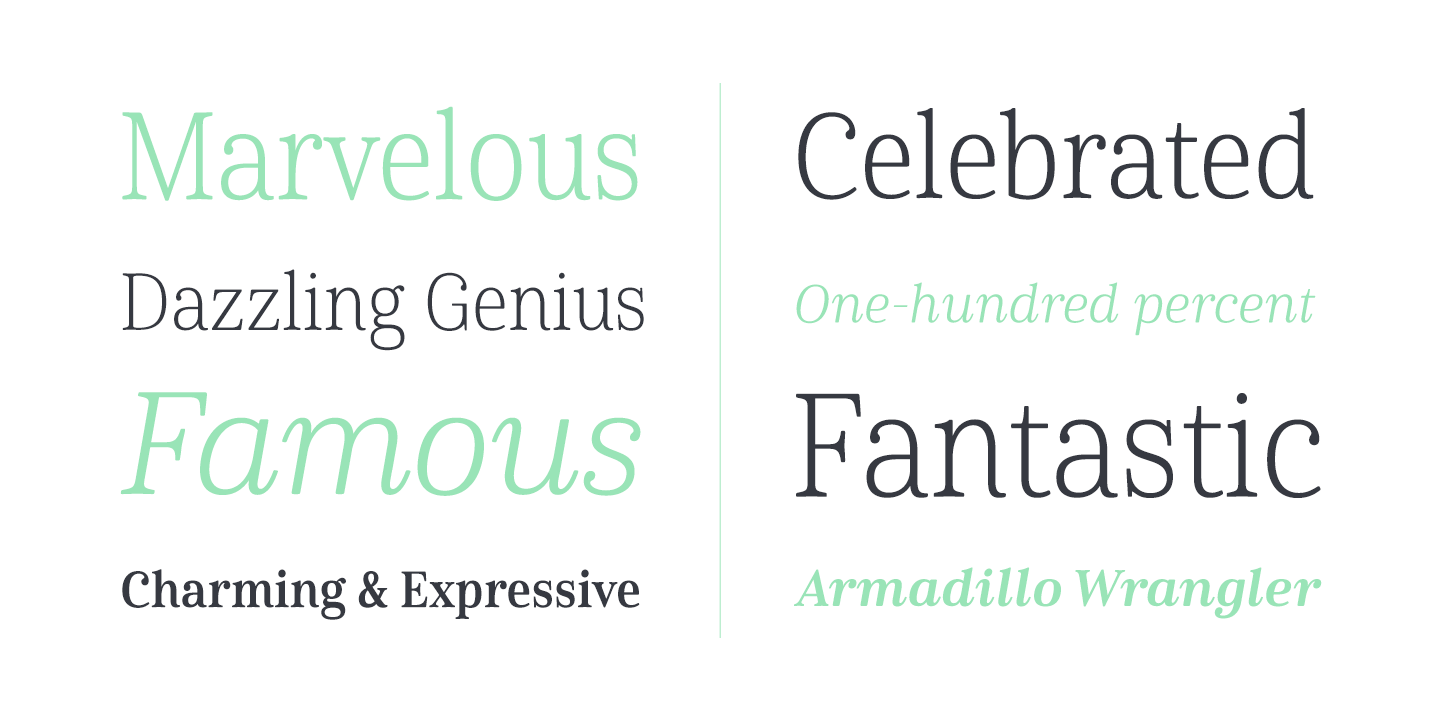
Cabrito Serif Font is ideal for children's book publishing, educational materials design, family-friendly restaurant branding, playful toy company marketing, youth-oriented publications, cheerful greeting cards, friendly childcare center communications, wholesome family entertainment, adorable pet store signage, charming craft businesses, delightful bakery branding, and warm community organization materials.
This font is exciting because it captures the playful charm and gentle sophistication of childhood wonder, featuring warmly approachable serif letterforms that communicate with the same endearing friendliness and innocent joy found in the bleating laughter of young goats frolicking in sunny meadows and the delightful curiosity that makes children ask endless questions about the world around them. The thoughtfully crafted character design balances both the educational reliability needed for children's reading development and the playful spirit that keeps young minds engaged and excited about learning, creating typography that feels both trustworthy for parents and appealing to children. Each letter radiates the kind of gentle warmth and approachable sophistication that transforms ordinary text into inviting expressions perfect for family-oriented communications and child-friendly educational content.
The Cabrito Serif Font family includes multiple weights from light to bold, with corresponding italic styles, and comprehensive character sets featuring child-friendly numerals, approachable punctuation marks, and subtle design elements that enhance readability for developing readers. Advanced versions may offer additional stylistic variants with enhanced playful effects, alternate characters optimized for educational applications, and charming ornaments that celebrate the joy of childhood learning and family-oriented design.
Whether you're developing children's educational materials, creating family-friendly branding, or designing youth-oriented content, Cabrito Serif Font Free Download provides the playful reliability and gentle sophistication your project needs to communicate effectively with both children and their parents while maintaining the educational integrity essential for childhood development. This typeface transforms ordinary text into friendly invitations that celebrate the wonder of childhood and the importance of family-centered communication. The font's approachable character makes it perfect for brands and organizations that serve families and young learners. Children's educators and family-focused marketers will appreciate how this font brings authentic childhood charm to their work with its genuinely playful yet educationally appropriate character that delights children while reassuring parents.